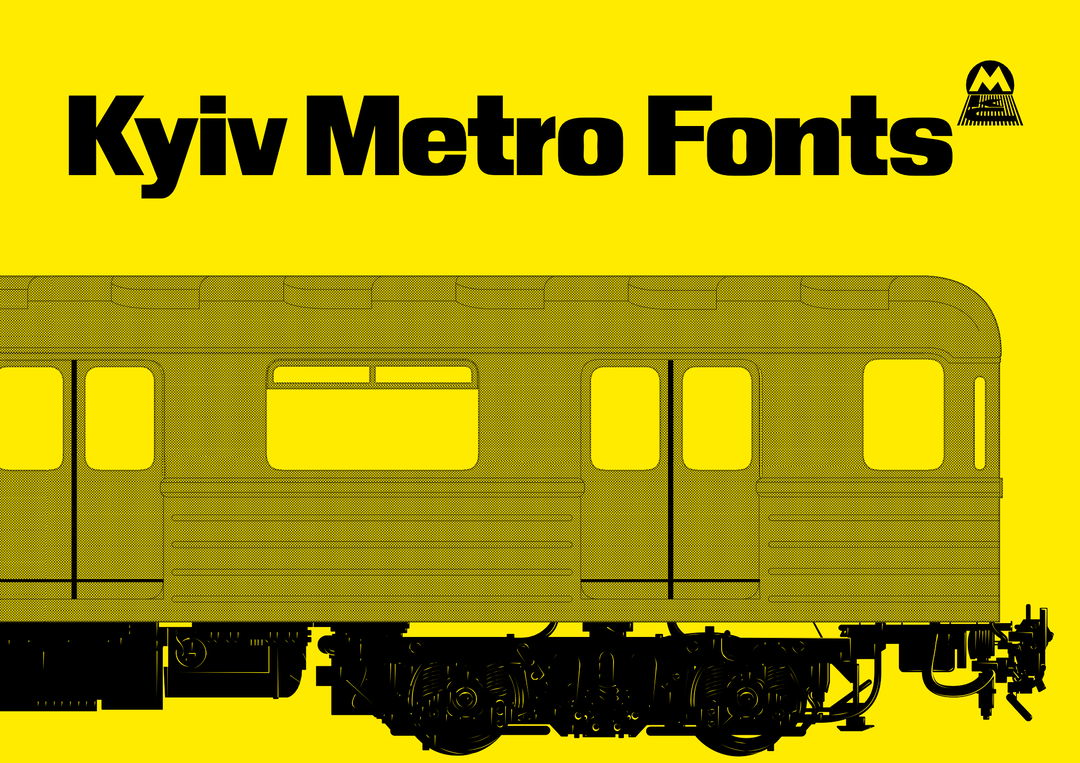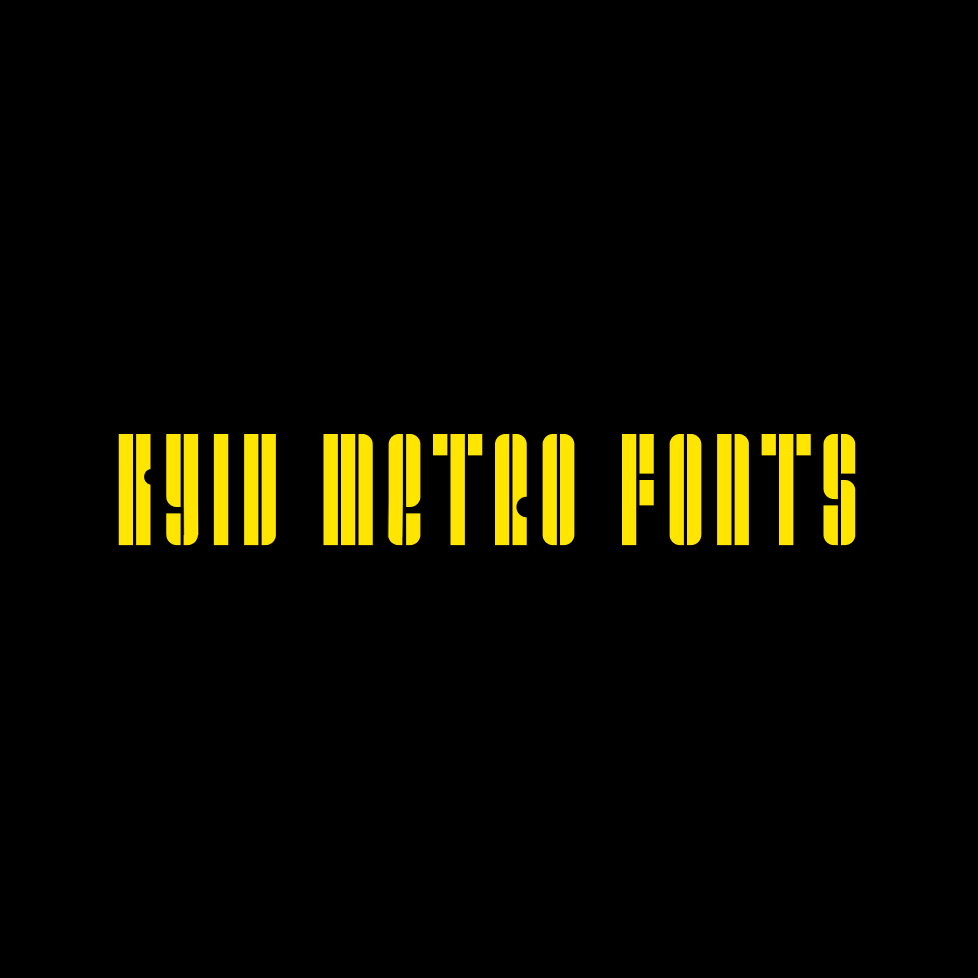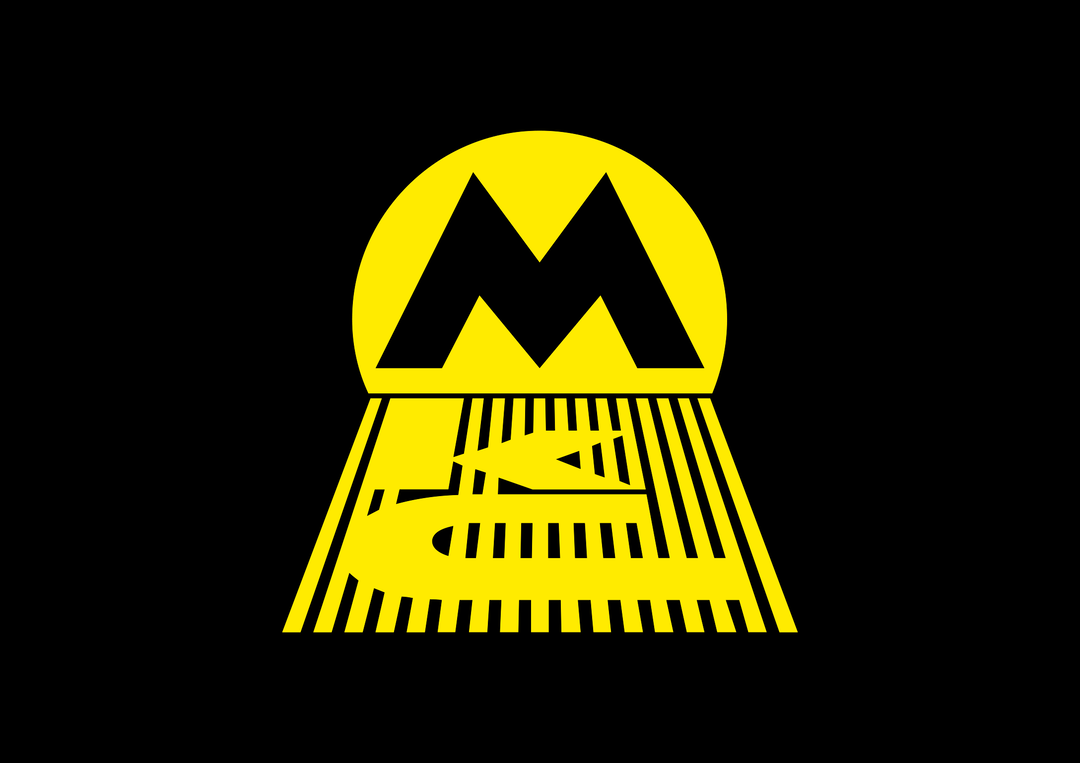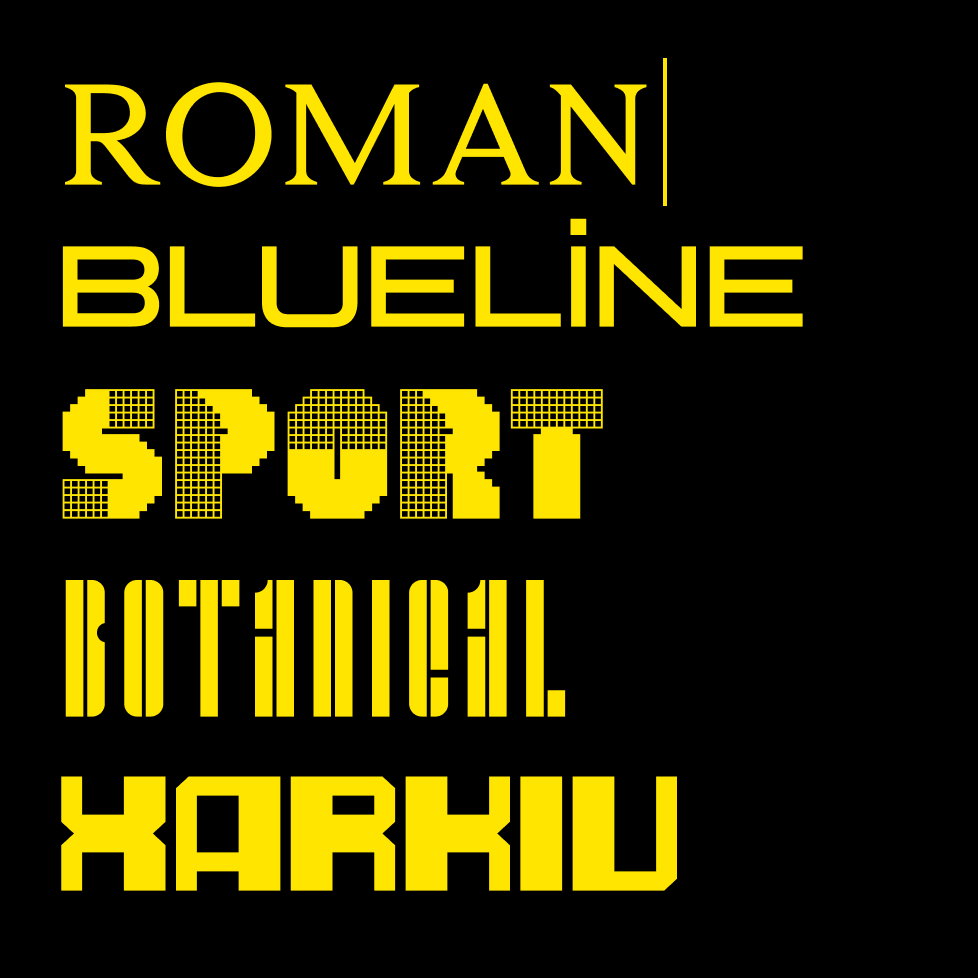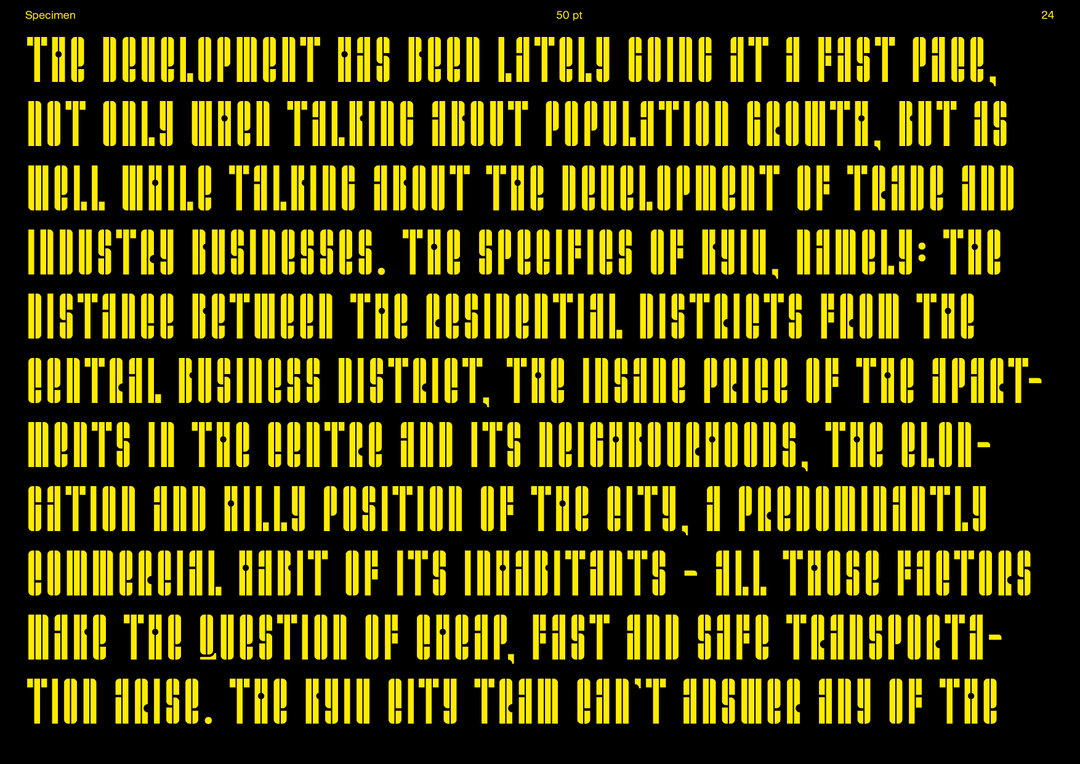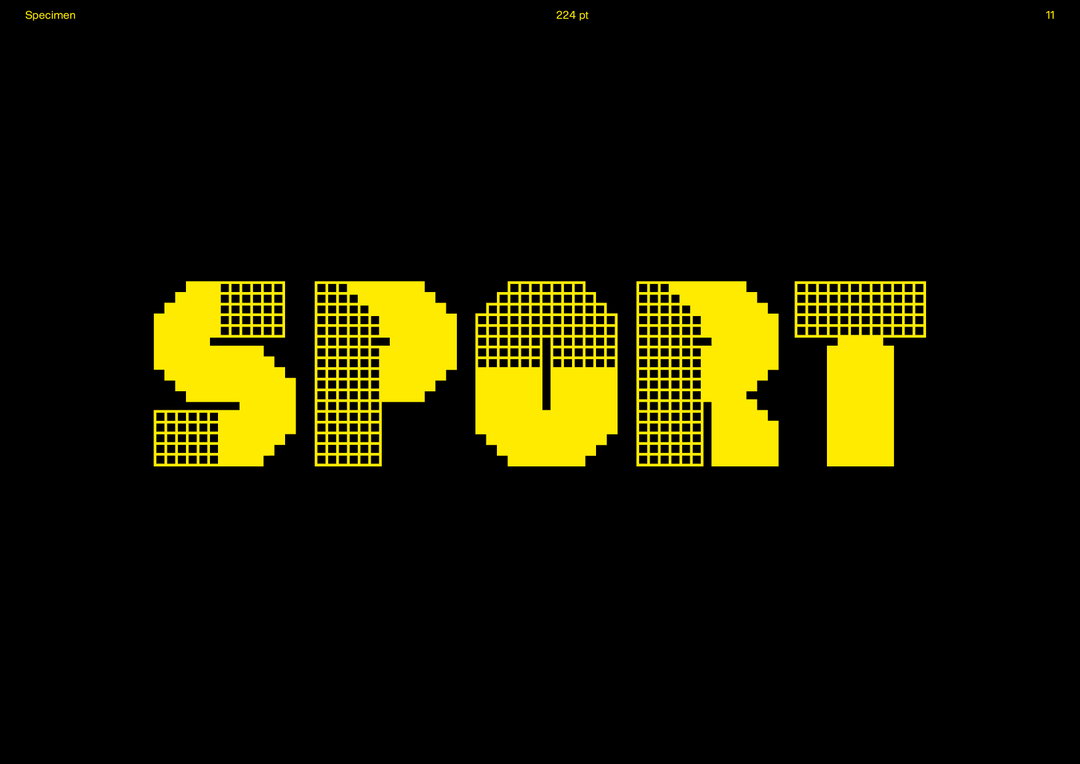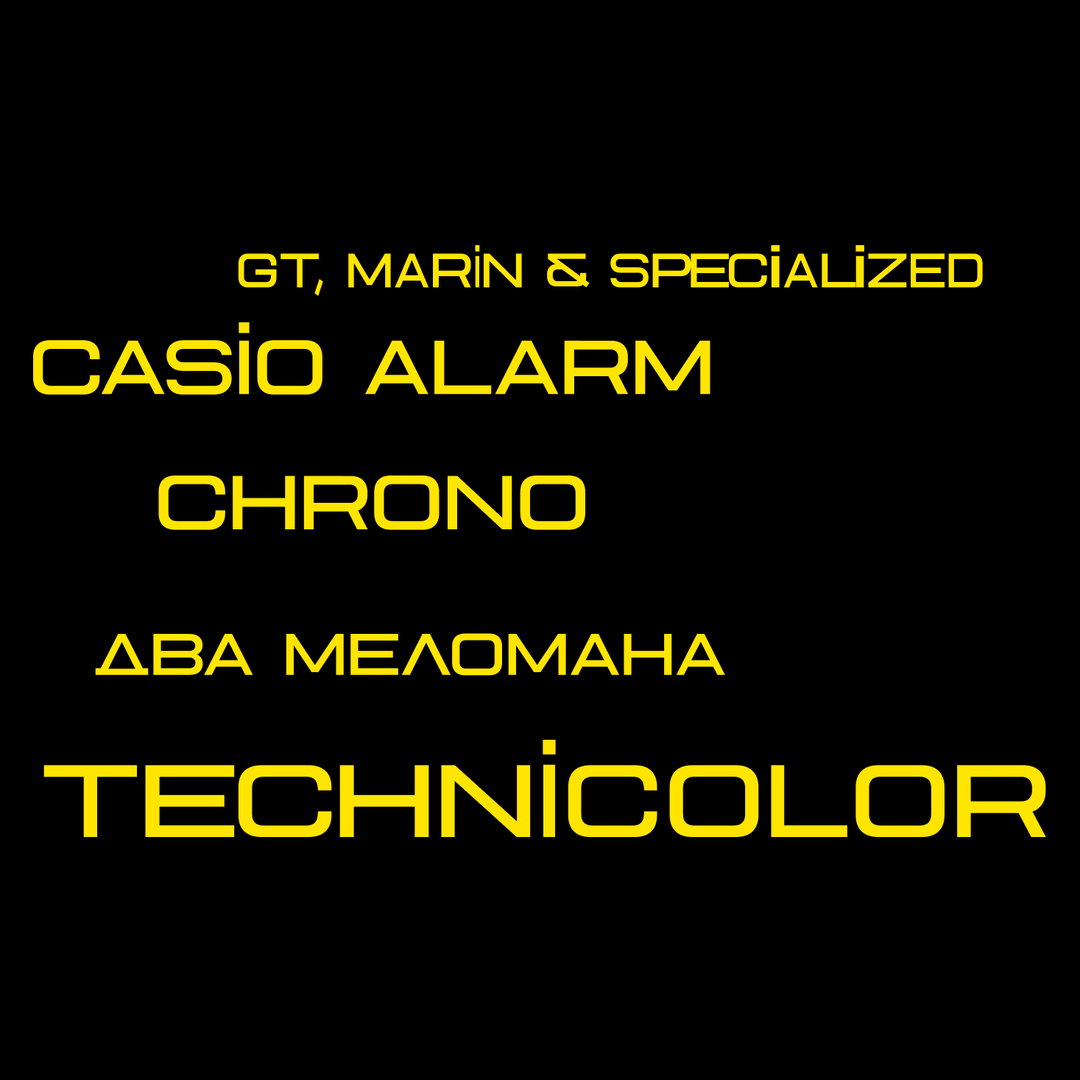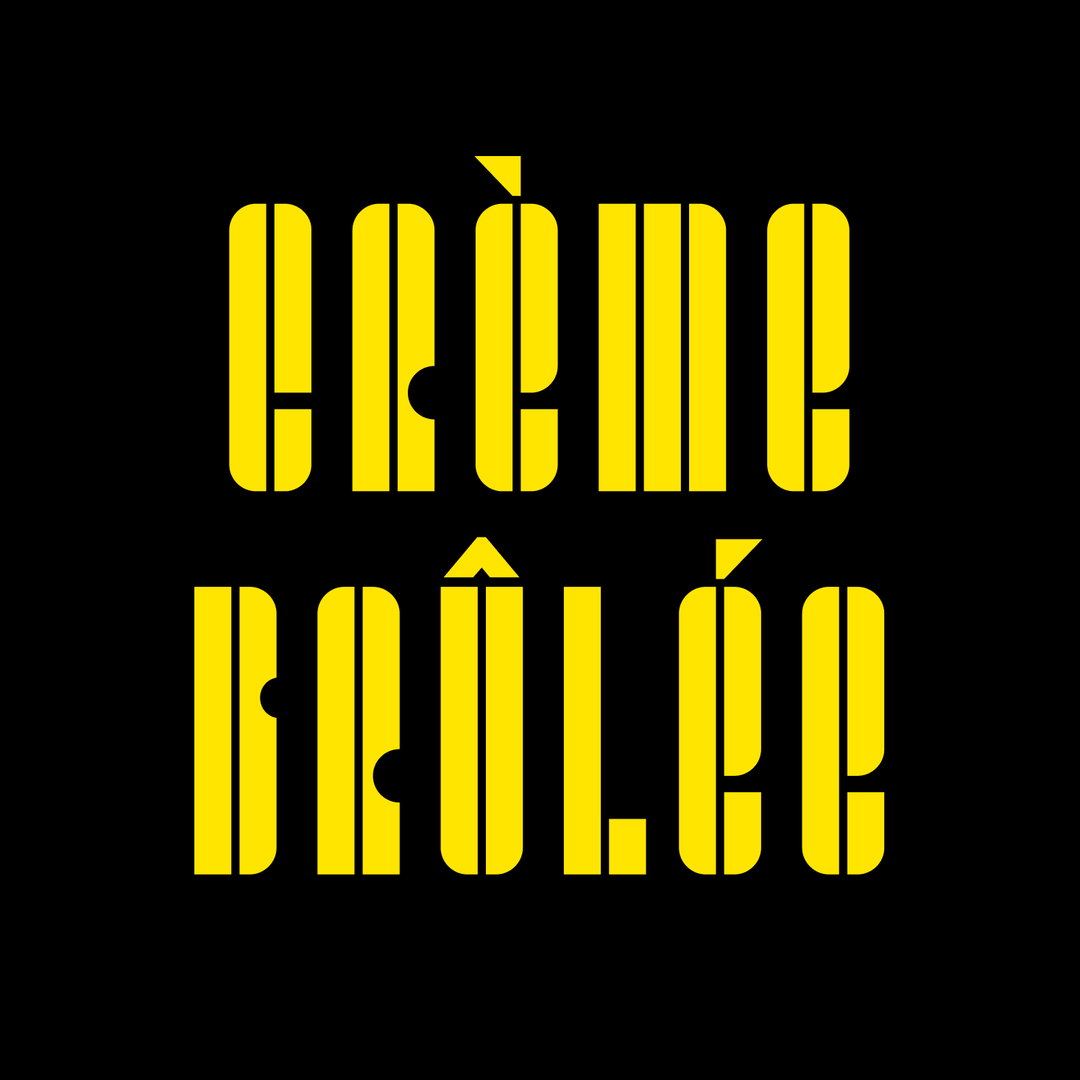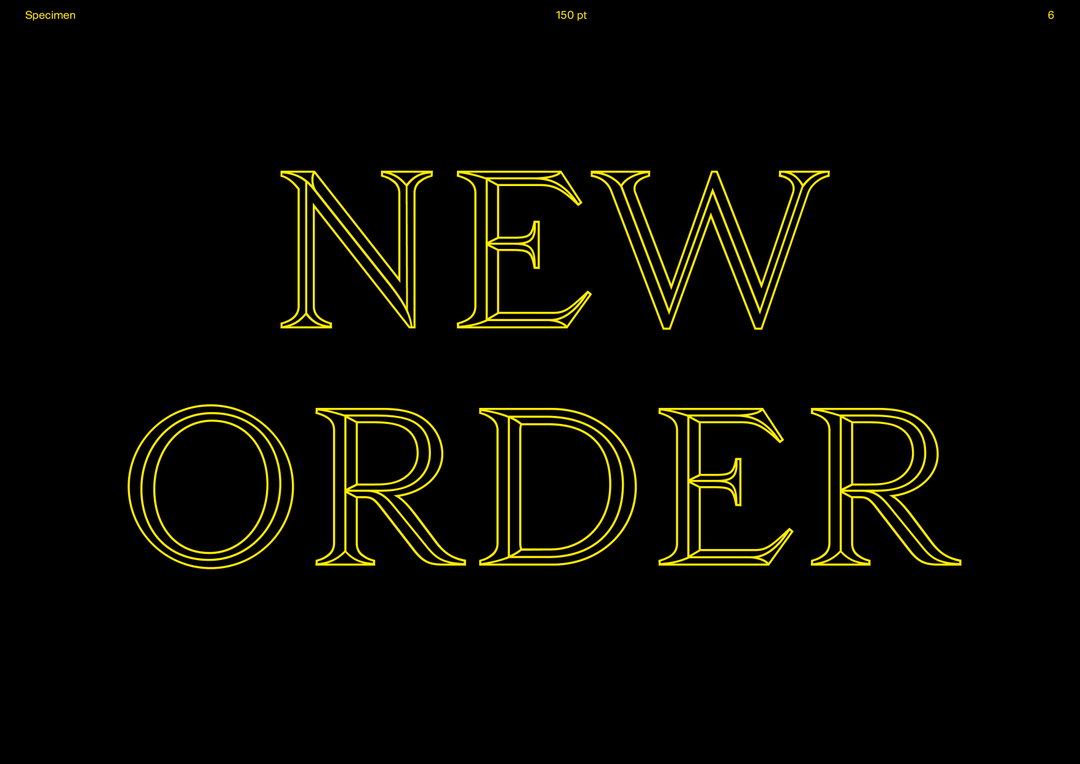
Kyiv Type Foundry is conserving the architectural heritage of Ukraine by pulling typefaces out from underground
We speak to the foundry’s founders about their recent typographic revival of Kyiv’s original metro signage – a new font family with firm roots in the city’s past and present.
Founded in 2021 by Yevgeniy Anfalov and Oleś Gergun, the Kyiv Type Foundry crafts custom fonts that aren’t only for use in design projects – they provide new perspectives on Cyrillic heritage in typography too. The pair define their practice as a “playground at the intersection of Latin and Cyrillic scripts”, and they share a fascination with reviving and remixing vintage letterforms distinct to Slavic alphabets. You can usually find Yevgeniy and Oleś working on type design projects that honour lengthy research, giving new life to the often overlooked fragments of typography found in the architecture of their surroundings, or hidden in the pages of books they find in flea markets and libraries. Their latest project, Kyiv Metro Fonts, continues this spirit of foraging, finding and looking at things anew, and is deeply interwoven with the history of their shared home.
Built on the results of a week-long student workshop in the summer of 2023, the foundry’s Metro font family is a development in the duo’s typographic research of Kyiv, through which, metro stations became new sites of discovery. Originally built as nuclear bomb shelters in the 1960s, the stations are now being once again used for their initial purpose. For thousands of the city’s inhabitants, following Russia’s invasion of Ukraine in 2022, these underground spaces have become a portion of the city’s architecture that has preserved its memory in landscapes of war – where a rich typographic history also quietly sits.
Yevgeniy and Oleś’ five collaborative lettersets draw inspiration from the city’s original metro fonts – a remaining piece of Kyiv’s past that a group of designers’ were asked to document, analyse and repurpose as material for new and visionary fonts, vessels for their history to live on. The results are a testament to preserving the memory of a place in letter form; a stark resistance to a world of slick, or in their words, “superficial” type trends, and a turn to everything vernacular, slow and local for the making of typography.
Here, the duo discuss the font family’s firm roots in the city’s past and present, the importance of taking a critical and balanced approach to typographic revival, and their resistance to letting go of Ukraine’s history, in all its difficulties, in order to reclaim the country’s soviet scripts.
Kyiv Type Foundry: Kyiv Metro Fonts (Copyright © Kyiv Type Foundry, 2024)
It’s Nice That (INT):
To begin, can you tell us a bit about the foundry and how it started?
Yevgeniy Anfalov (YA):
The idea for Kyiv Type Foundry (KTF) began in Germany during a meeting between myself and Oleś Gergun, my creative partner. We bonded over our love for Cyrillic type design heritage, vernacular typography, and our understanding of the design culture in Kyiv, my hometown and Oleś’s adopted home.
Oleś Gergun (OG):
We realised that design practices in Ukraine were narcissistic rather than critical.
YA:
So we formed KTF to respond to this realisation, seeking a critical approach to local visuality that would pay due respect to the country and our city’s rich history.
OG:
KTF is a psychological program that treats local design complexes, if you like. A movement to accept ourselves as we are, with all the visual trash and the past we went through. Studying the local context in Ukraine is way more pleasing than scrolling.
YA:
We initially started as a platform for Cyrillic fonts. I received intense training in Latin type design at University of Art and Design Lausanne (ECAL) in Switzerland. Expanding my practice and learning to design Cyrillic felt natural, as I’m bilingual and read a lot in Cyrillic. KTF was made to be a playground at the intersection of Latin and Cyrillic scripts. Our ongoing research sparks from the central question: how do they enrich each other?
We do slow type design. Our outcome is based on lengthy research periods, both locally, in our surrounding area, and in the pages of books we find in flea markets and libraries. I often hear complaints from my peers about the need for good Cyrillic fonts, but this is not the case if you look back at uncovered fields, and that’s what we want to explore.
We’re treating the overlooked and overshadowed first. So far, these have come in the form of Soviet legacy fonts, based on typefaces dating back to the simultaneous rise of the USSR and modernist design with the first batch of our releases dealing with a critical evaluation of Soviet typography.
In 2021, before the big war, we were interested in the 60s and 70s in Soviet-Ukrainian design. And now – Ukraine lives through an iconoclastic period as a result of the failing politics of decommunisation and war-related trauma. Still, we have to remember that this was caused by the Russian invasion of Ukraine that started in 2014 and grew into a full-scale invasion in 2022.
A typical reaction to this in Ukraine is: ‘The invaders are proud of the Soviet past, so we’ll destroy all the symbols and signs of it here.’ Unfortunately, a lot of good stuff becomes a target of this stigmatisation and subsequent destruction, labeled as Soviet or Russian. We thought we needed a more critical approach, one that goes beyond the glorification or demonisation of cultural artefacts. For society, this requires time and distance. As someone living between two contexts, the Ukrainian and the European, it may be easier for us to gain some distance to the subject matter.